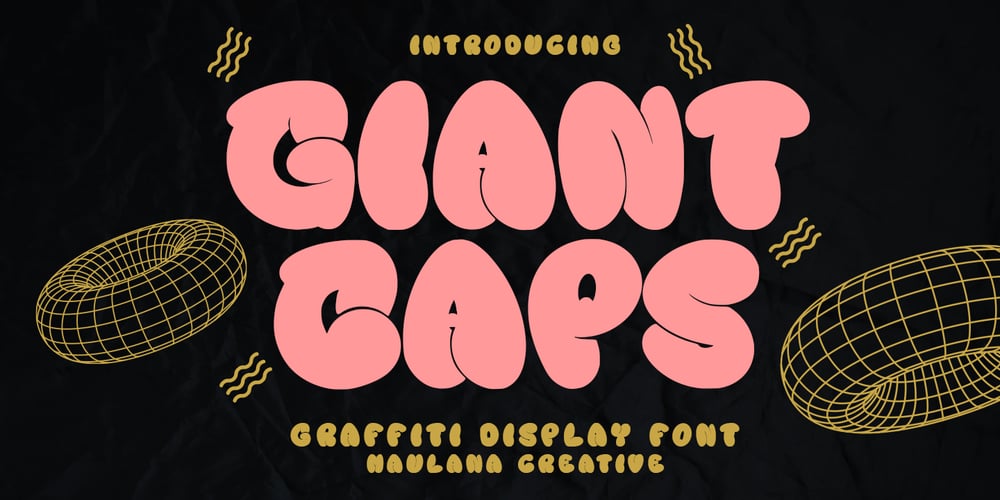
MC Giant Caps Font Family was designed by Gilang Maulana and published by Maulana Creative. MC Giant Caps contains 1 styles and family package options. Giant Caps is a graffiti display font. With slanted medium low contrast stroke, fun character with a bit of ligatures and alternates. To give you an extra creative work. Giant Caps font support multilingual more than 100+ language. This font is good for logo design, Social media, Movie Titles, Books Titles, a short text even a long text letter and good for your secondary text font with script or serif. Make a stunning work with Giant Caps font.